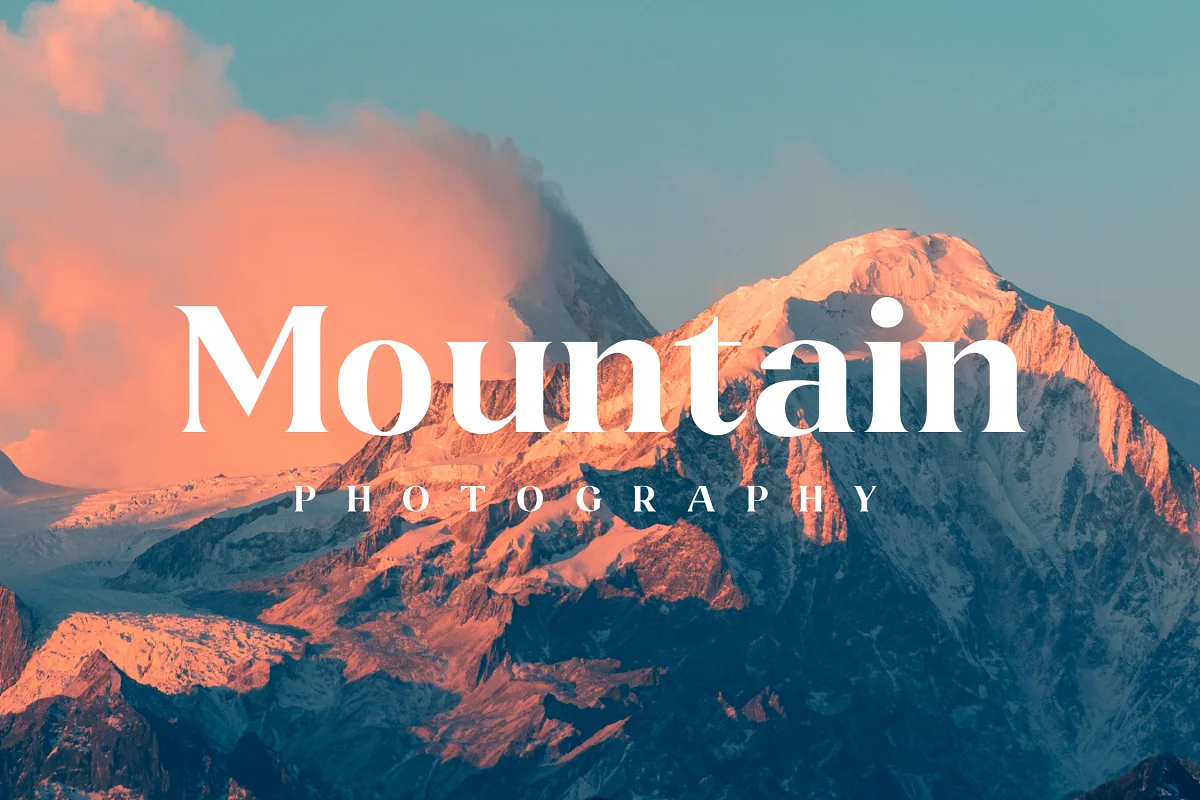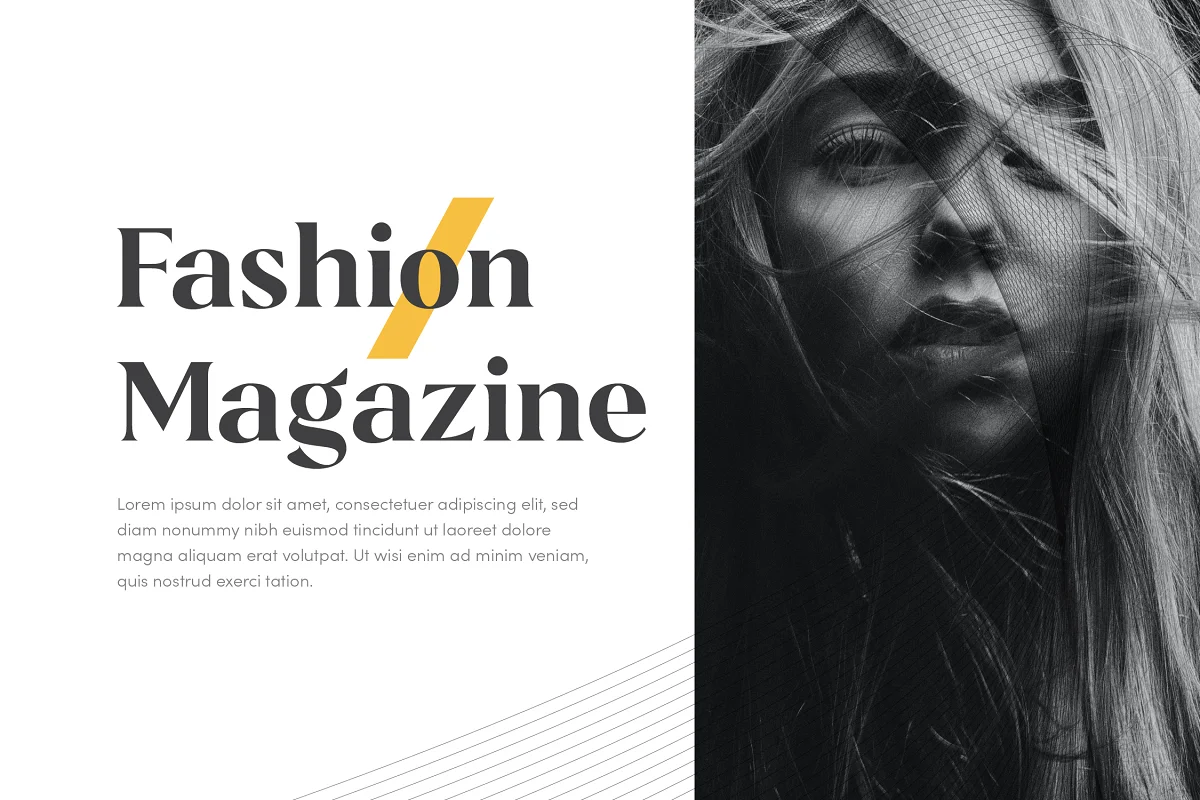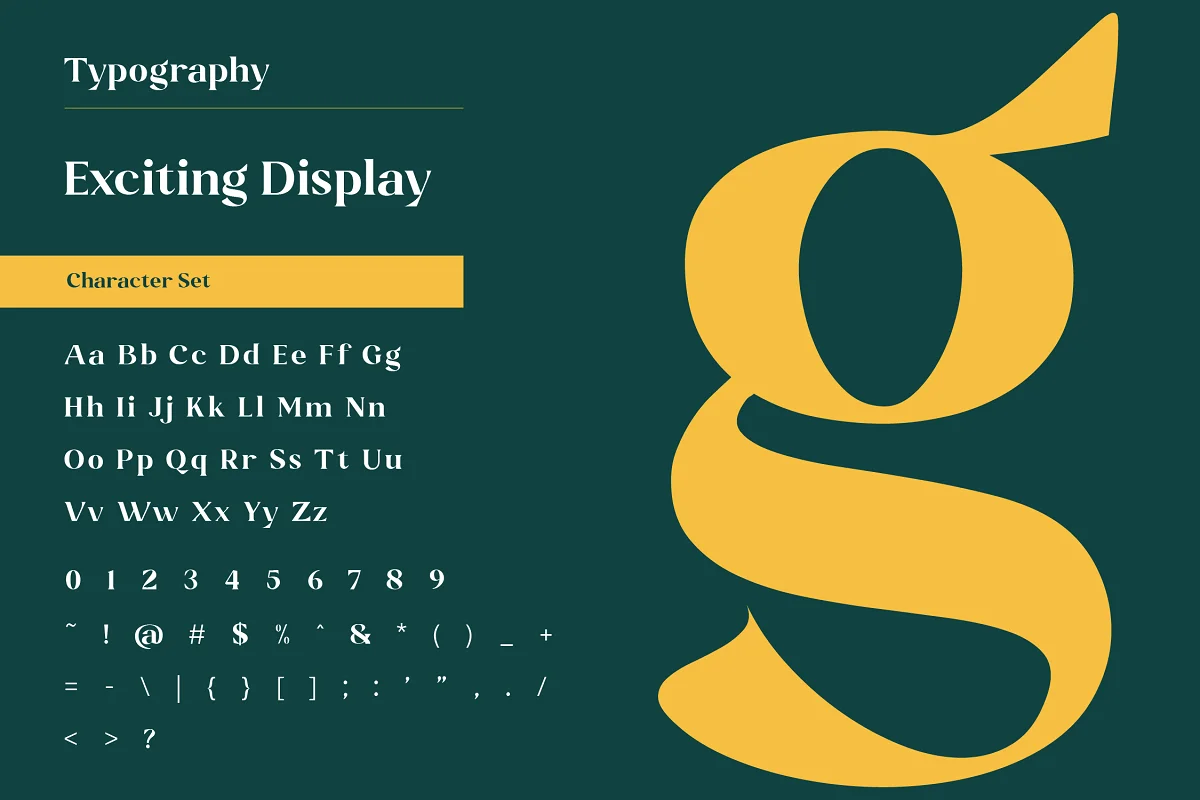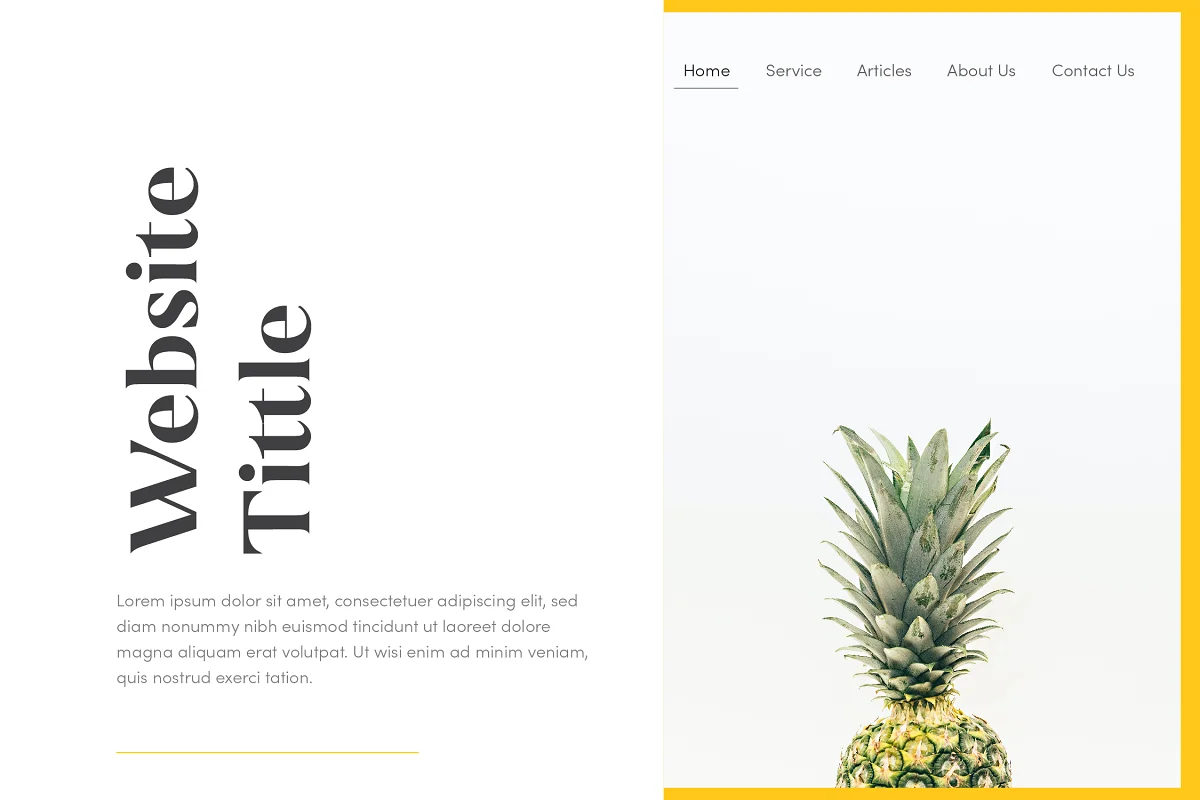
About the Exciting Display Font
Introducing a new font product from us Exciting Display is an elegant & luxury font, this font has a unique design.
This font will be adaptable to all design products such as Magazine, Website Tittle, Branding, and much more.